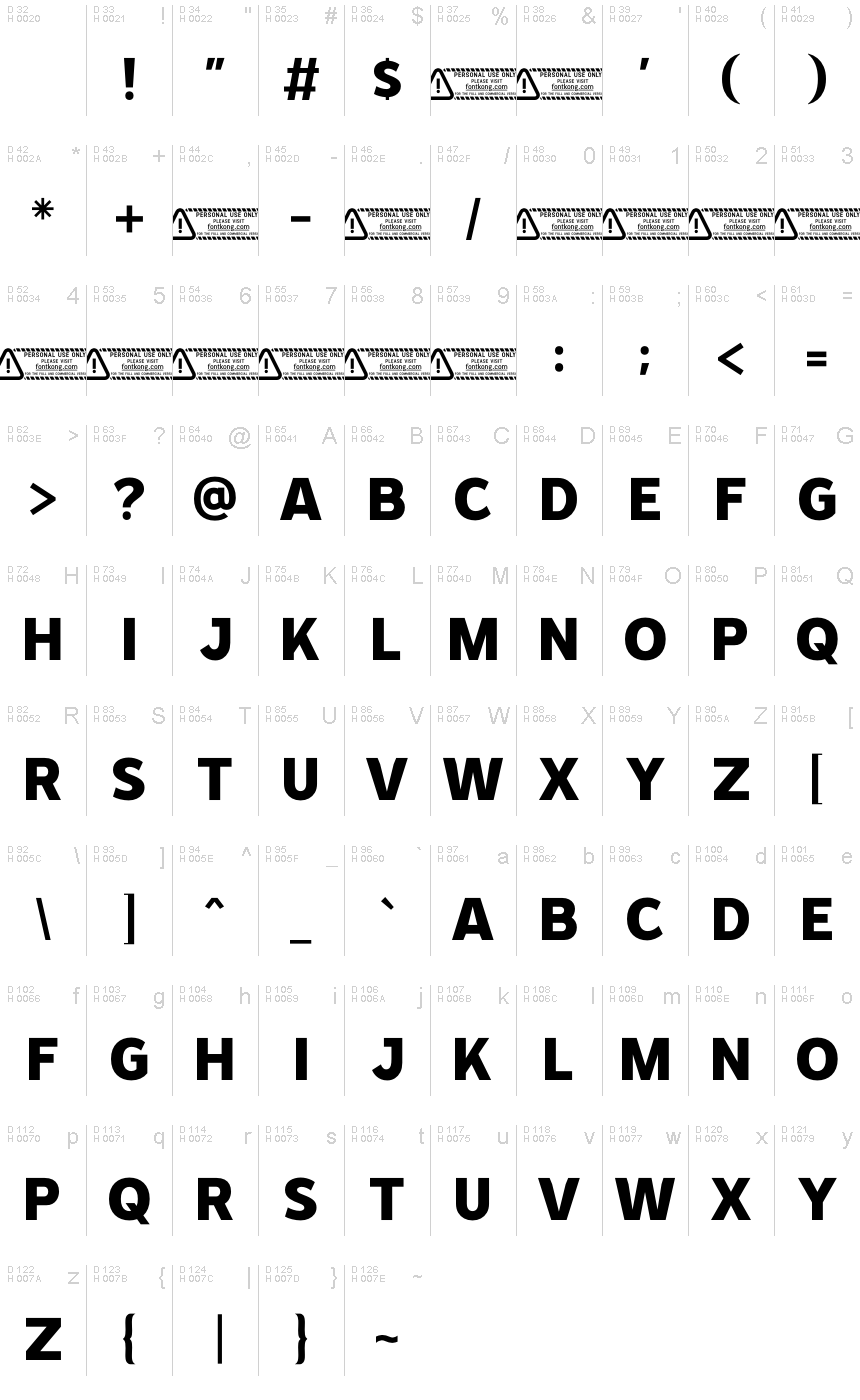
Bronz PERSONAL USE ONLY!
Bronz, crafted by Kong Font, embodies a bold sans serif style that captivates with its clean lines and assertive presence. Its sturdy and robust contours exude confidence, making it an excellent choice for conveying strength and reliability. The font’s generous spacing and solid structure provide a modern aesthetic that is both striking and highly readable.
This powerful typeface lends itself to a wide array of design needs. From headlines demanding attention to branding that stands out in a crowded marketplace, Bronz offers designers the versatility to make a statement across various mediums such as advertising, packaging, and digital interfaces. Its authoritative charm ensures that any message delivered is not only seen but felt with impact.